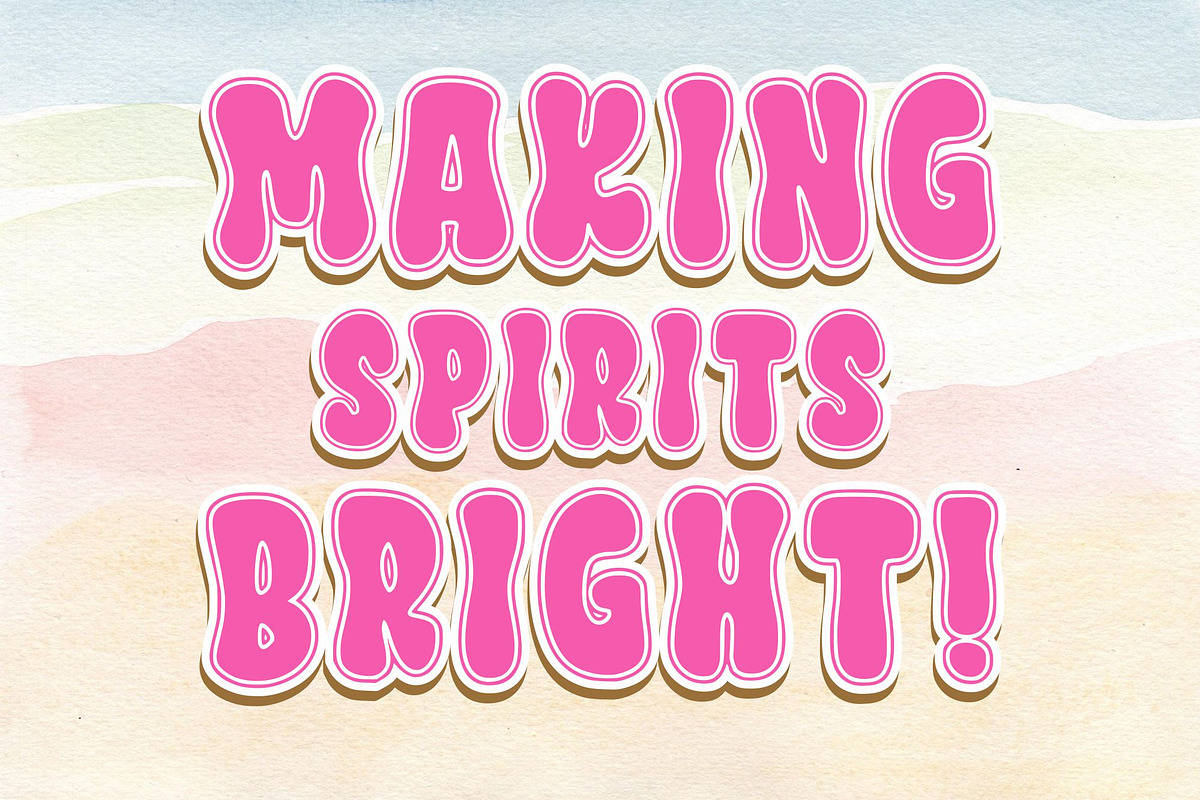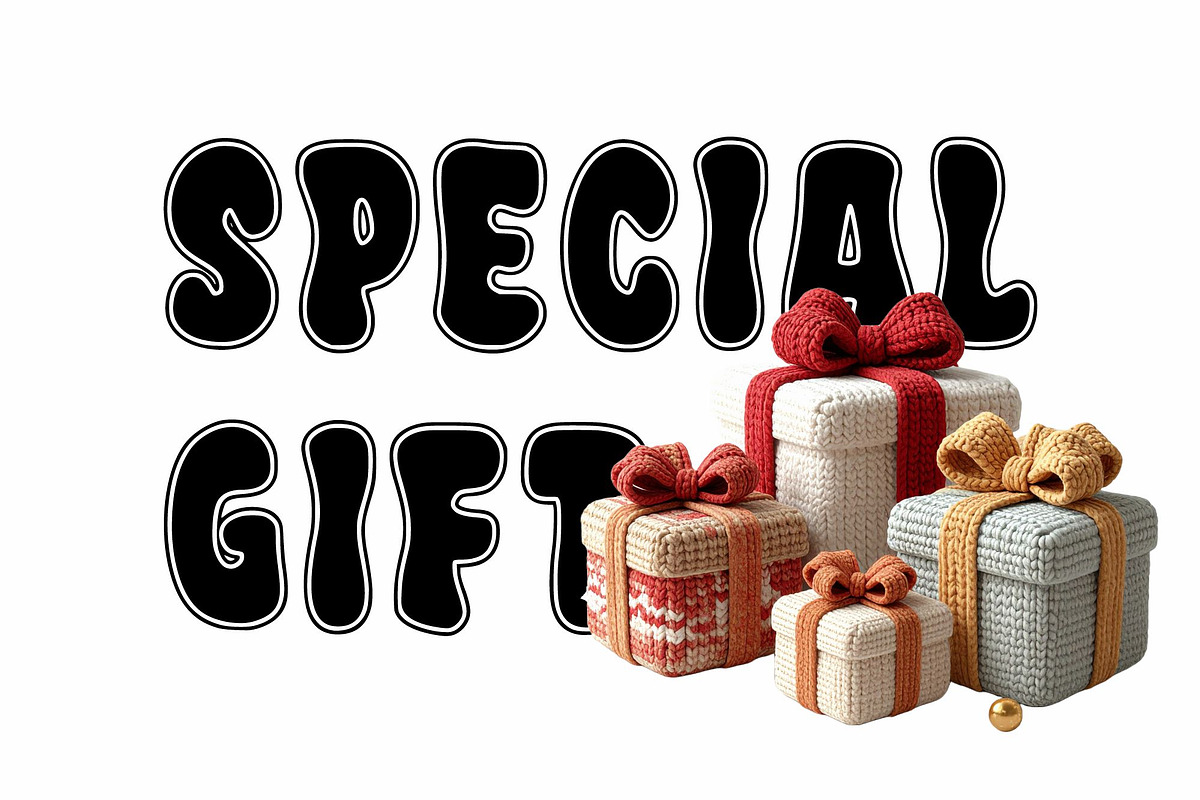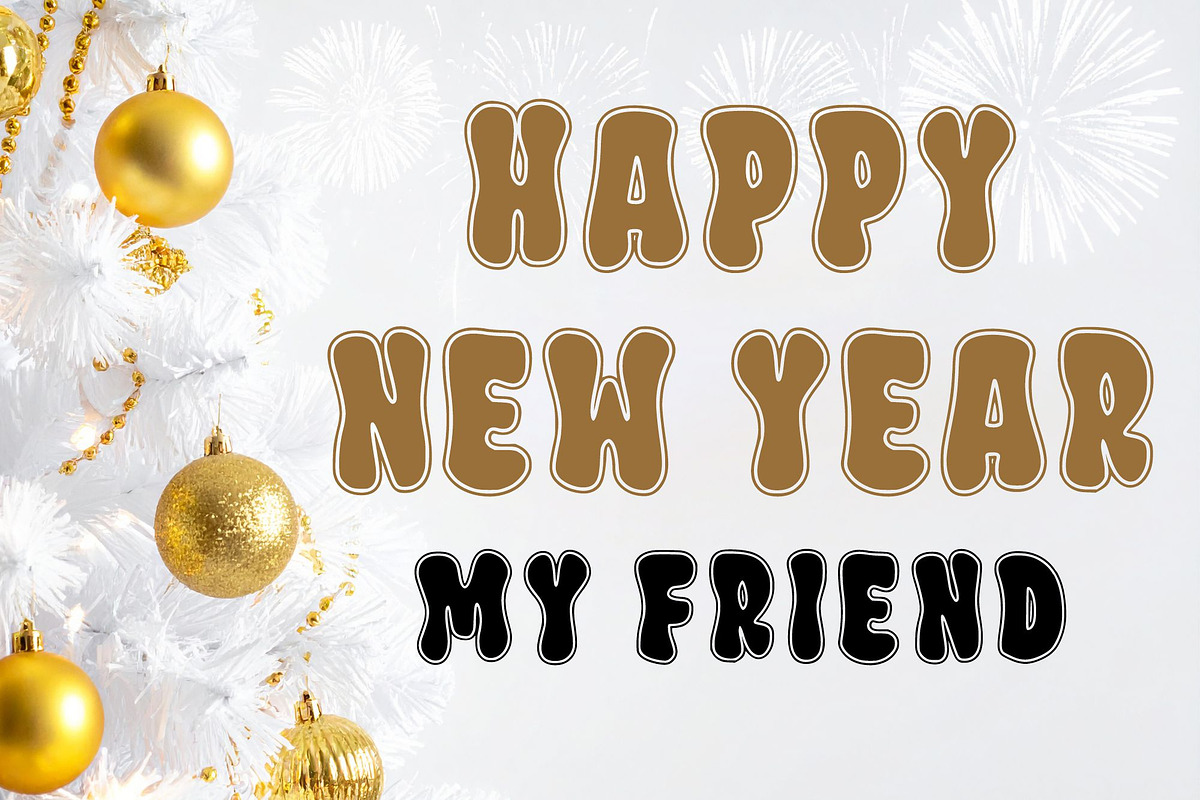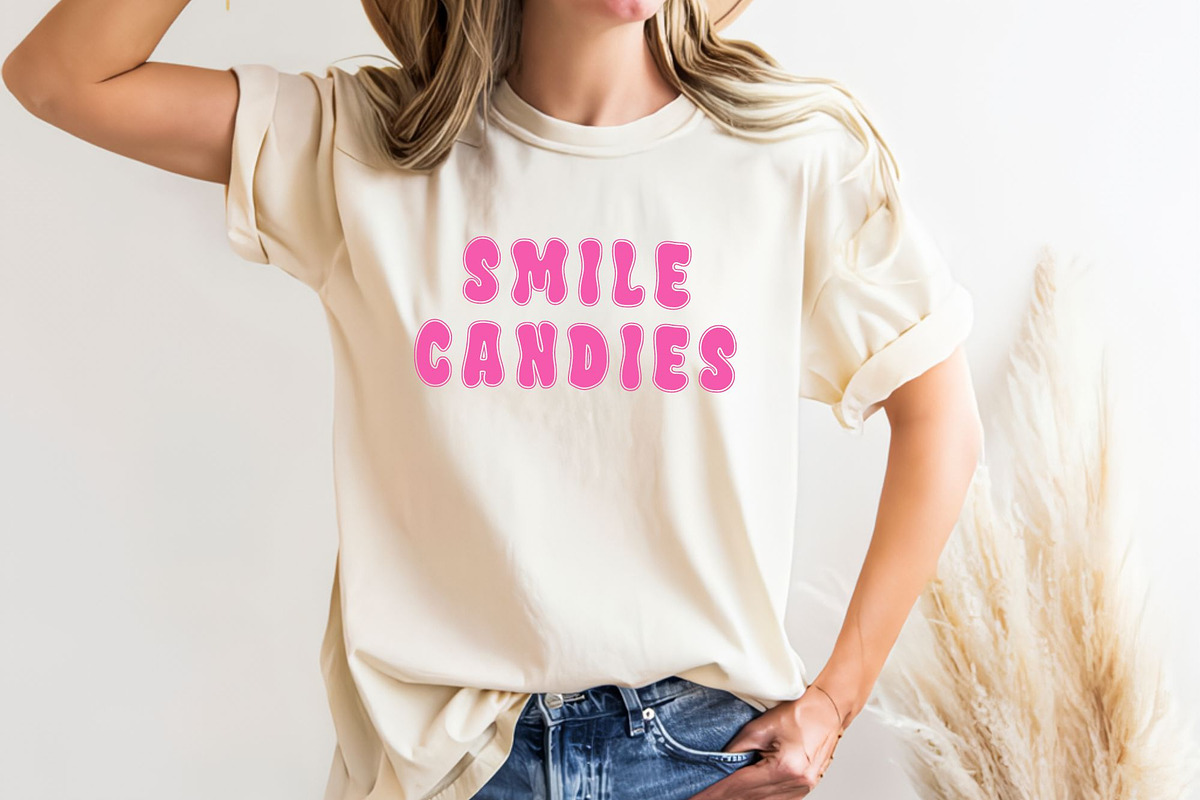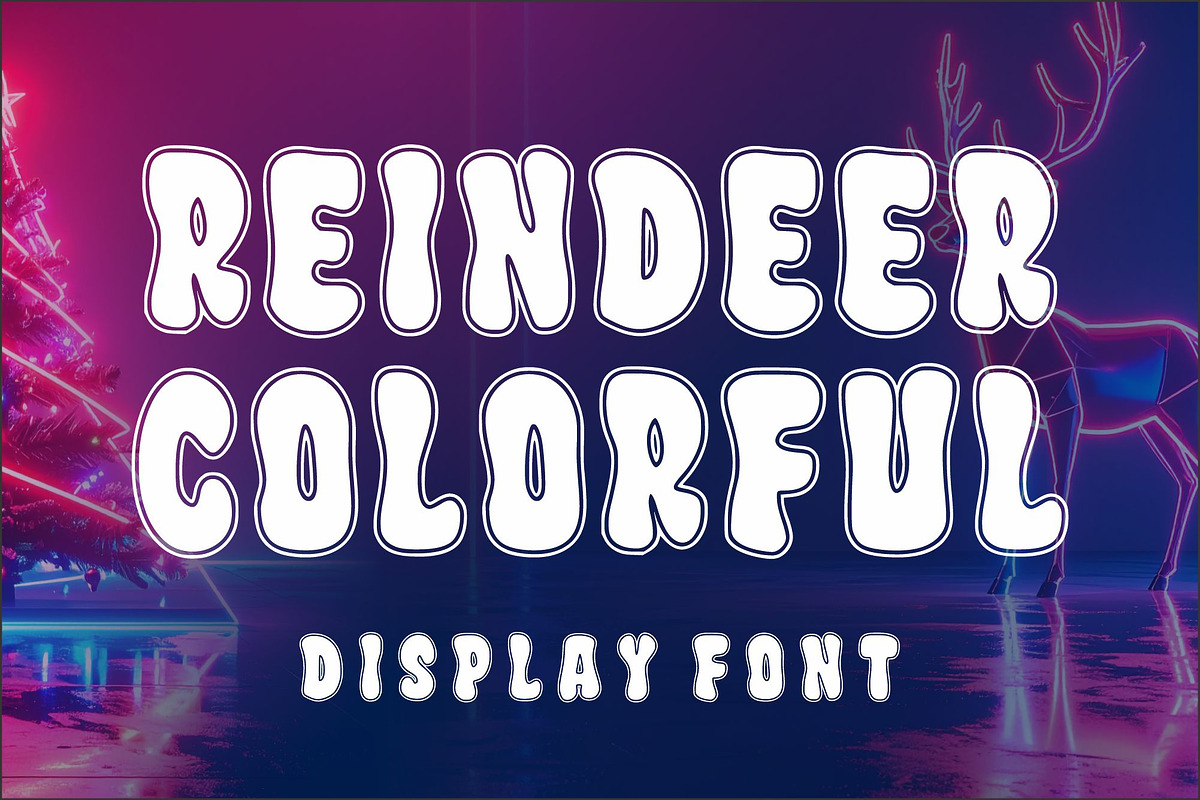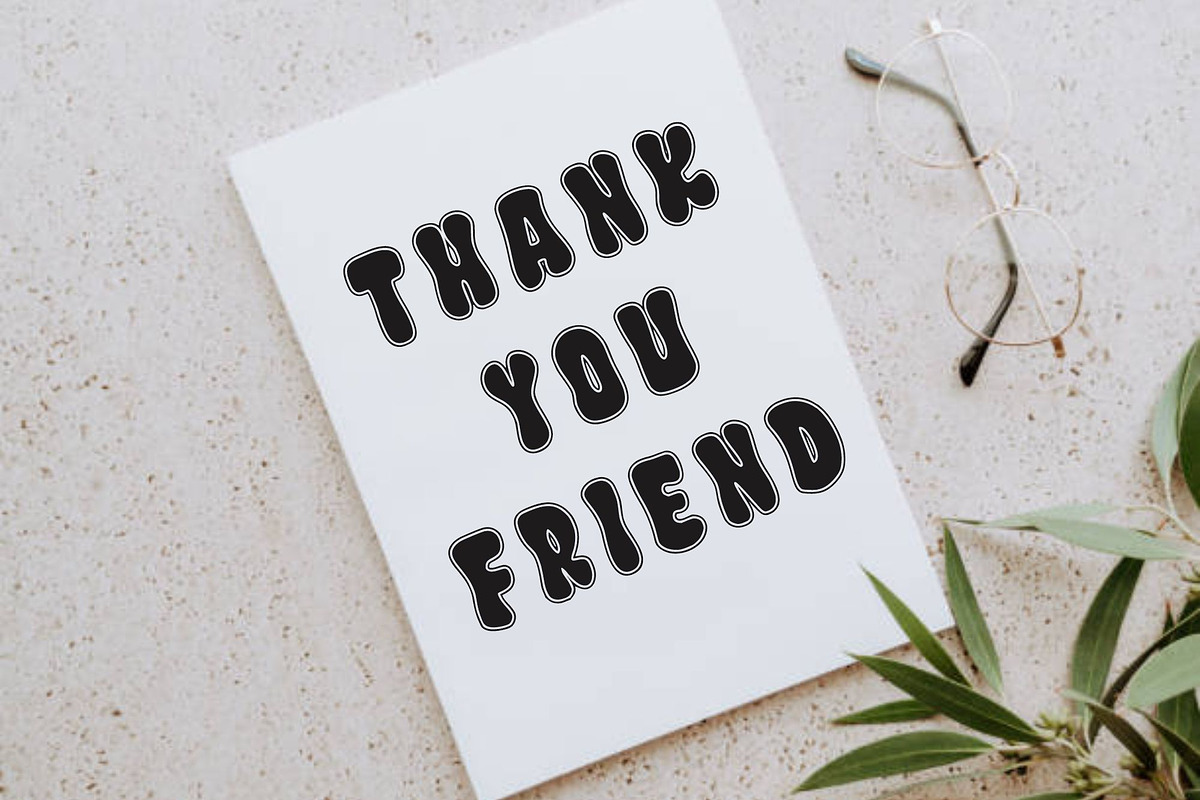
Reindeer Colorful
Reindeer Colorful is a bold and playful display font perfect for festive projects. Its chunky, hand-drawn style with bright, cheerful vibes makes it ideal for Christmas cards, invitations, posters, T-shirt designs, mugs, tote bags, and more.